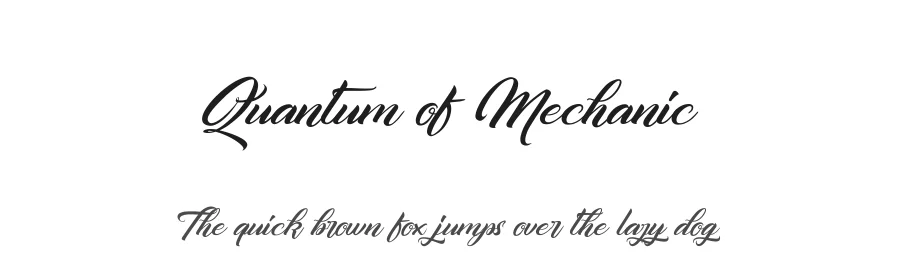
About Maryatha Font
Maryatha is a new beautiful font, with high quality crayon textured made this font look like your handwriting. Create your moodboard, typography, your Insta story or anything you wanna create look gorgeous.
Maryatha Font is a script font that shines as a display or heading face. Pair it with a clean sans-serif or serif font for body text β the contrast creates a clear hierarchy while the two styles stay balanced and easy to read.